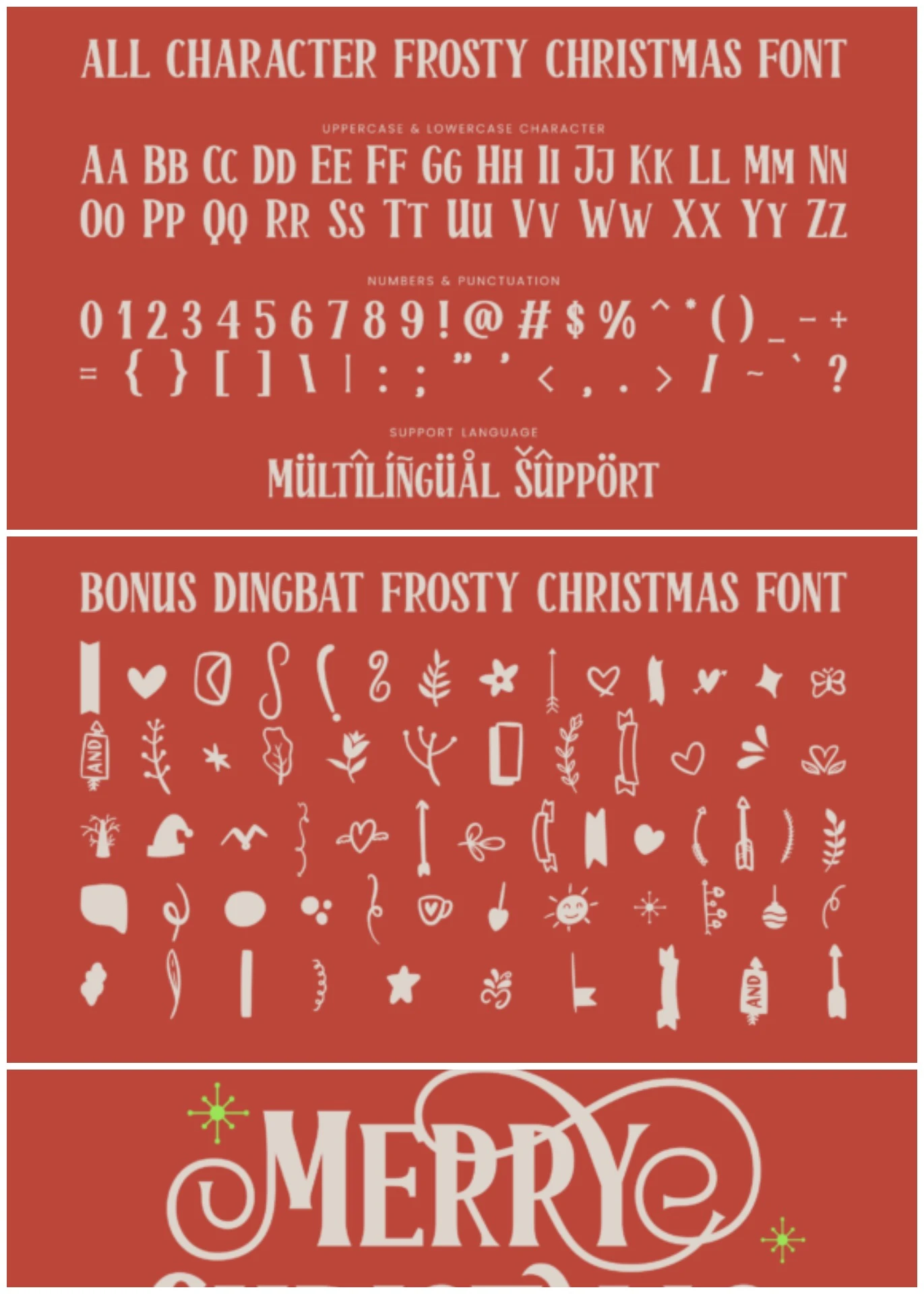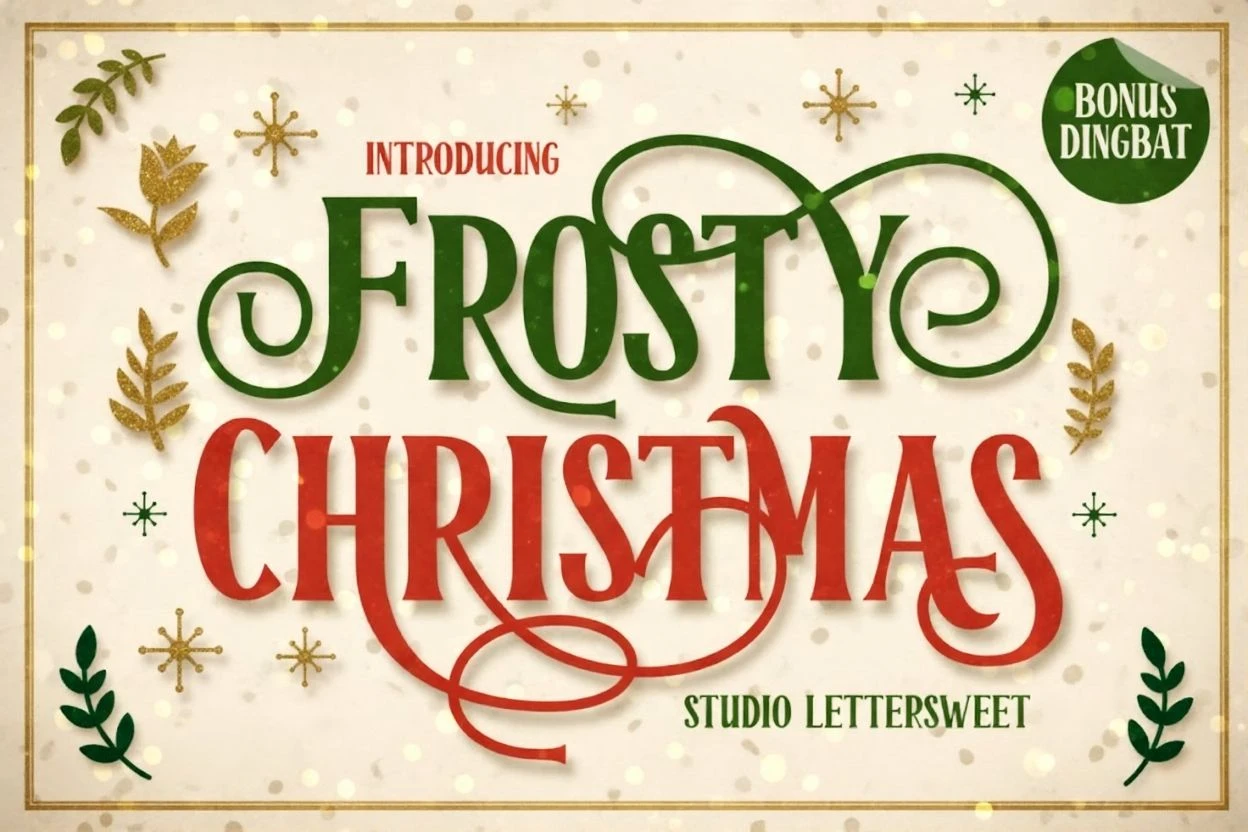
Bring the magic of the holiday season to life with Frosty Christmas Font, a festive and elegant vintage serif typeface designed to capture the warmth, joy, and sparkle of Christmas. Each letter features playful swirls and decorative ornaments, giving your designs a classic yet cheerful look.
Perfect for Christmas cards, invitations, posters, crafts, mugs, packaging, and holiday branding, this typeface adds a touch of nostalgic charm and timeless sophistication to any project. Whether you’re designing for print or digital, Frosty Christmas helps you create artwork that truly shines.
This font also includes bonus dingbats and festive embellishments — ideal for customizing your holiday typography and adding delightful details.
Celebrate the season with the elegant, festive beauty of Frosty Christmas Font – your go-to typeface for warm and joyful winter designs!